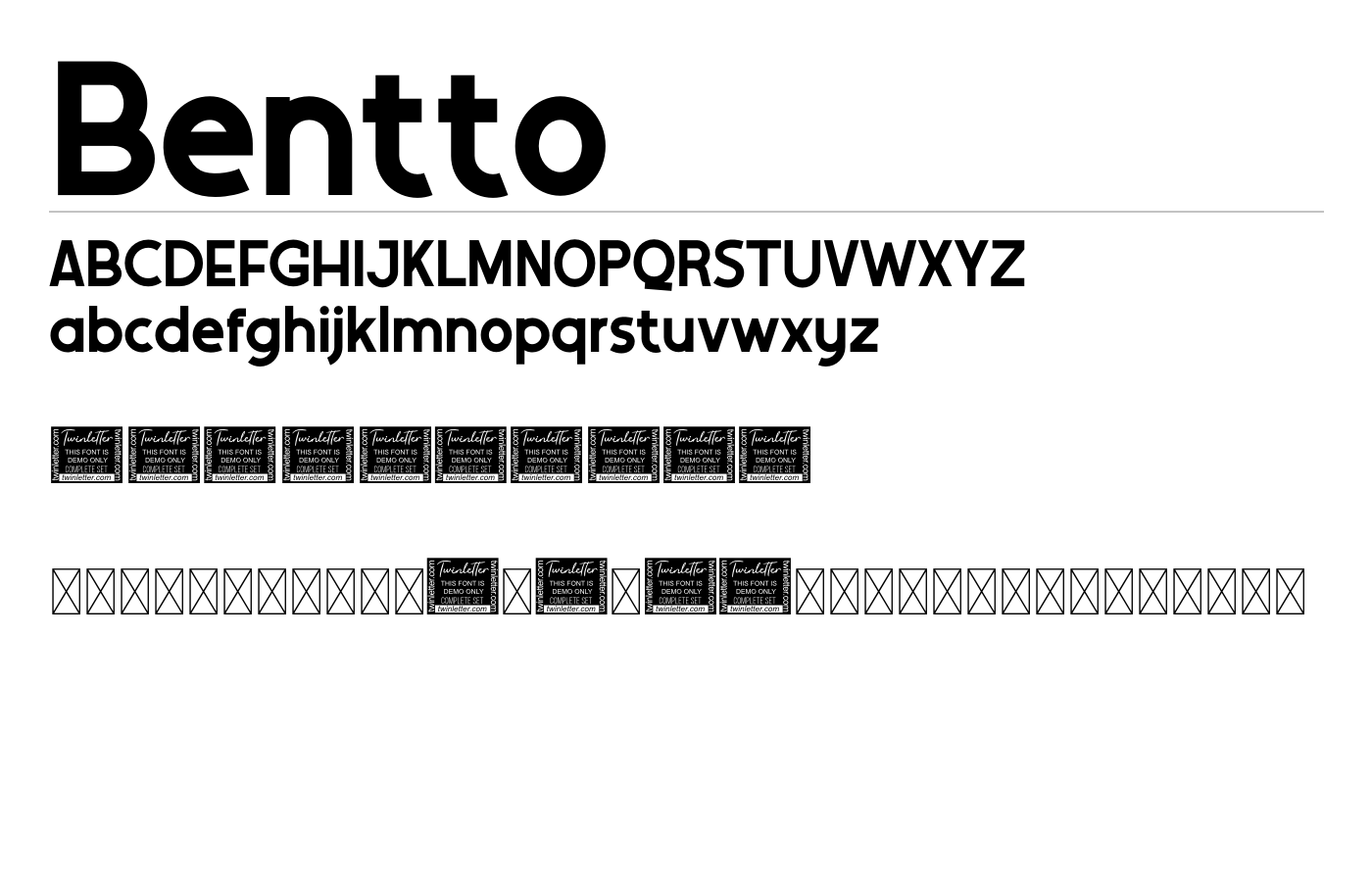
Bentto is a bold, clean sans serif font with a modern, geometric feel and a slightly condensed width that makes it highly readable and impactful. Its smooth, rounded letterforms and generous x-height create a friendly yet professional appearance, ideal for branding, headlines, and digital content where clarity and strength are key. This font works well for companies seeking a contemporary look that balances professionalism with approachability.
Bentto Font
About Bentto Font